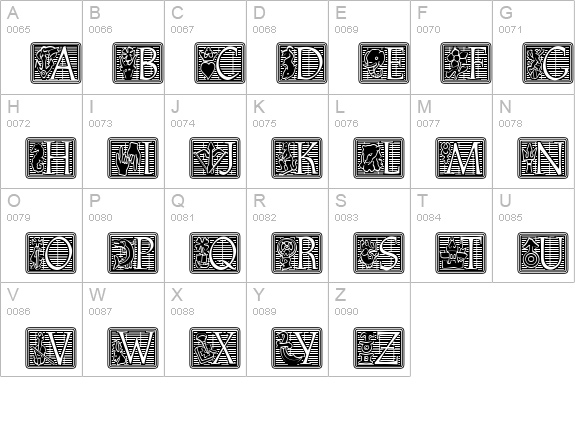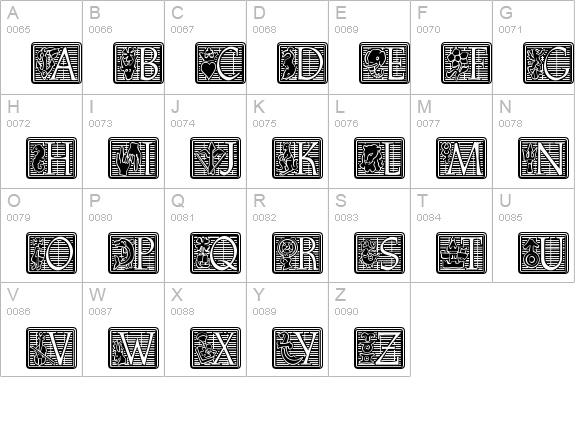
CgAthenaeumInitialNegative Font Details
CgAthenaeumInitialNegative font is a stunning and elegant typeface that exudes sophistication and charm. Its intricate details and ornate design make it perfect for projects that require a touch of vintage elegance. This font features beautifully crafted initial letters with a negative space design that adds a unique and artistic flair to any text. What makes CgAthenaeumInitialNegative font even more impressive is that it is available for free download at FontsMarket.com. This means you can easily add this exquisite font to your collection without any cost. Whether you are working on invitations, posters, or branding projects, CgAthenaeumInitialNegative font will surely elevate your designs and leave a lasting impression on your audience. Download it now and unleash your creativity with this timeless and versatile typeface.